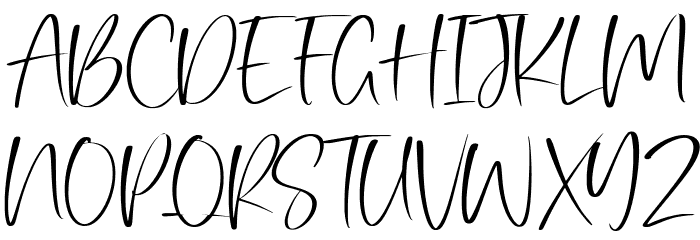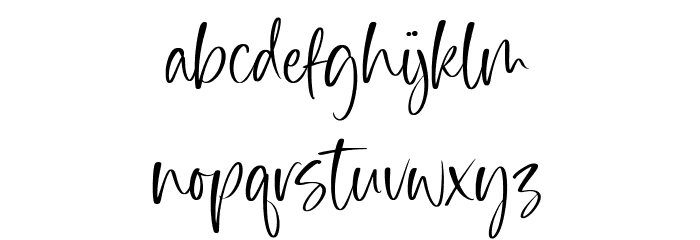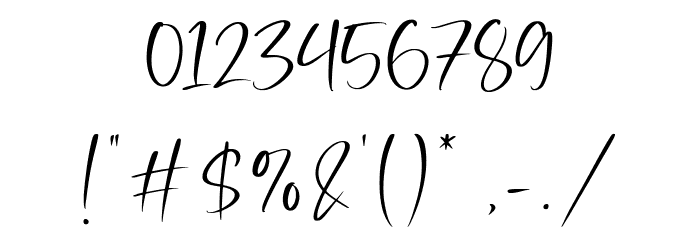
Rocksoldier Font
This font exhibits a lively and dynamic handwritten style, characterized by its fluid and flowing letterforms. The uppercase letters are tall and slightly narrow, with a playful bounce that adds a sense of movement. The lowercase letters maintain a consistent rhythm, with some letters featuring unique loops and swirls that enhance its casual elegance. The numerals are well-integrated, matching the overall style with a touch of whimsy. Special characters are thoughtfully designed, ensuring they blend seamlessly with the rest of the font. The overall appearance is both modern and approachable, making it suitable for a variety of creative applications.
A lively and dynamic handwritten font with fluid, flowing letterforms.
- Proposed Projects: Ideal for greeting cards, invitations, branding projects, and social media graphics.
- Use Case: Logos, Headlines, Invitations